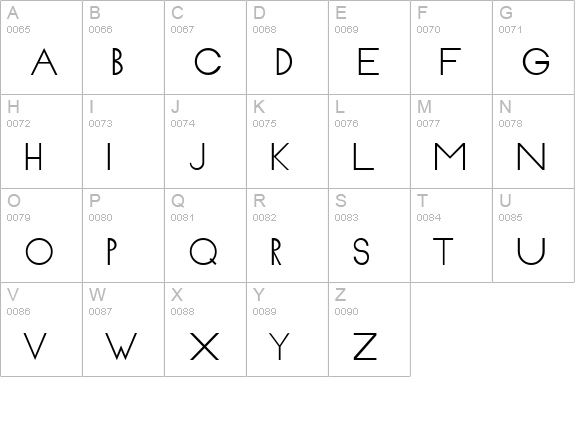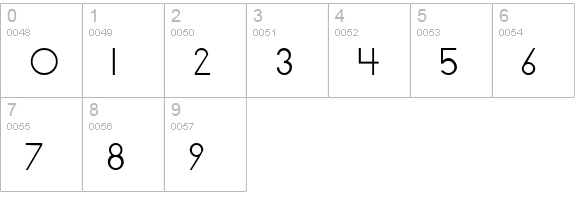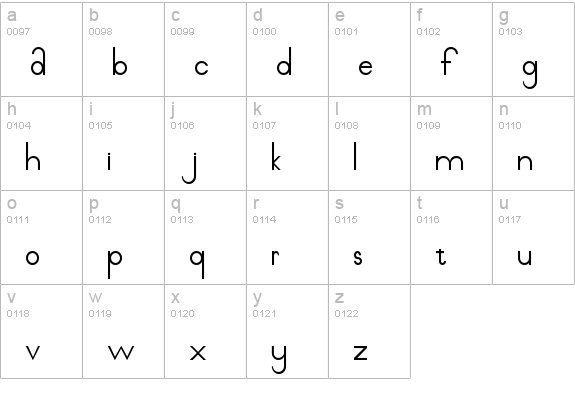
Pabloco Font Details
Introducing Pabloco, a modern and stylish font that exudes creativity and sophistication. With its sleek curves and clean lines, this typeface is perfect for a wide range of design projects, from branding and logo design to packaging and editorial layouts. Pabloco offers a unique blend of elegance and playfulness, making it suitable for both professional and personal use. Its versatility allows it to be seamlessly integrated into various design styles, whether you're aiming for a bold and edgy look or a more refined and minimalist aesthetic. What sets Pabloco apart is not only its exceptional design but also its accessibility. This font is freely available to download at FontsMarket.com, allowing designers and creatives to explore its full potential without any limitations. With just a few clicks, you can add this captivating font to your collection and start incorporating it into your projects. Whether you're a seasoned designer or just starting out, Pabloco offers a user-friendly experience, making it easy to experiment and create visually stunning designs. Its extensive character set includes uppercase and lowercase letters, numerals, punctuation marks, and special glyphs, providing you with all the tools you need to bring your creative visions to life. With Pabloco, you can effortlessly elevate your designs and make a lasting impression. So why wait? Download this remarkable font for free at FontsMarket.com and unlock a world of endless possibilities for your next design endeavor.